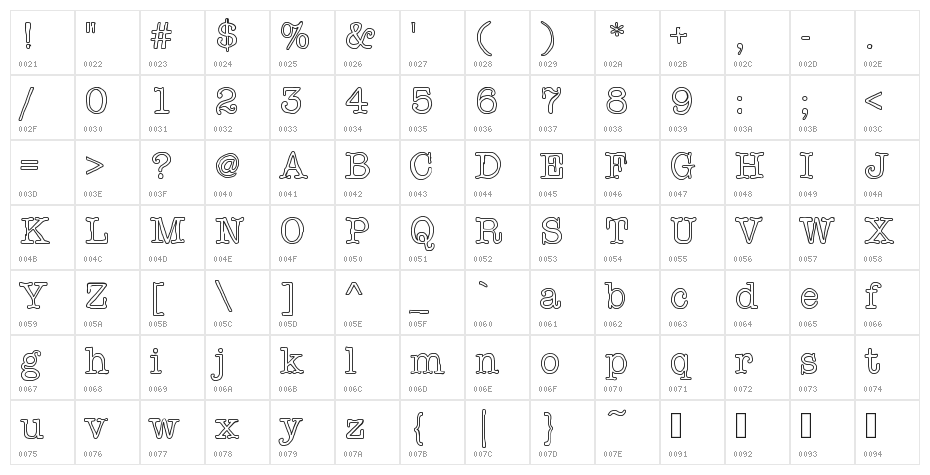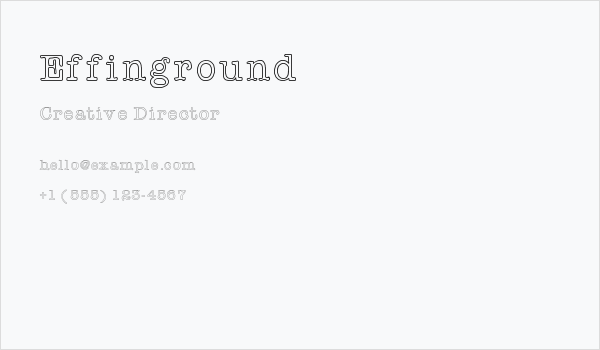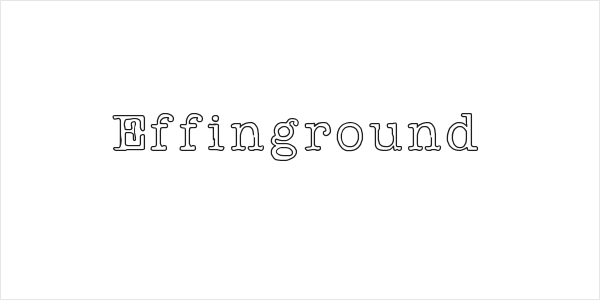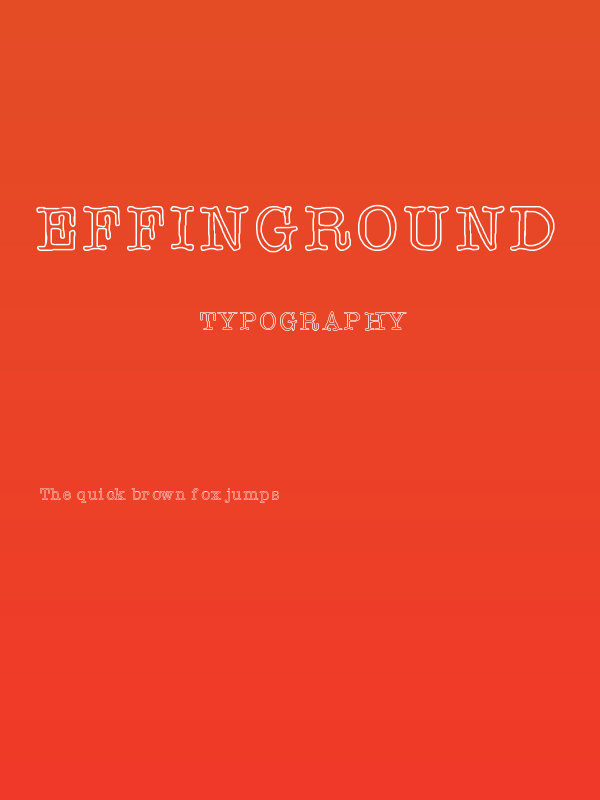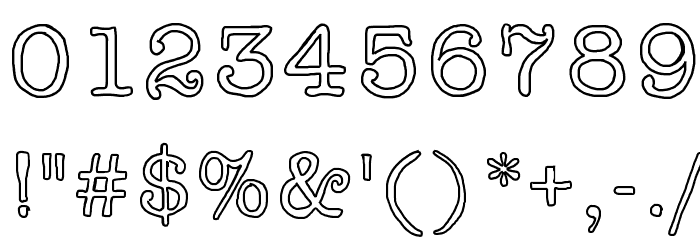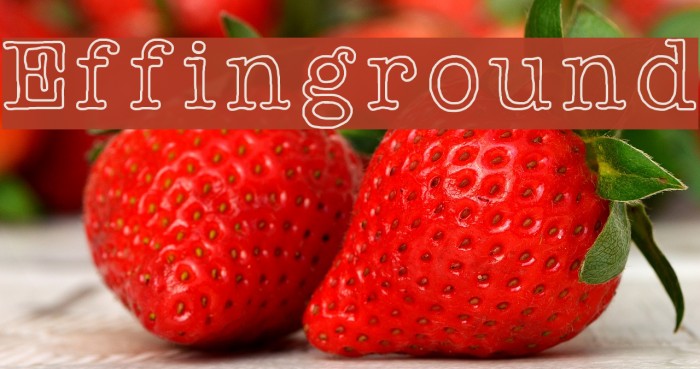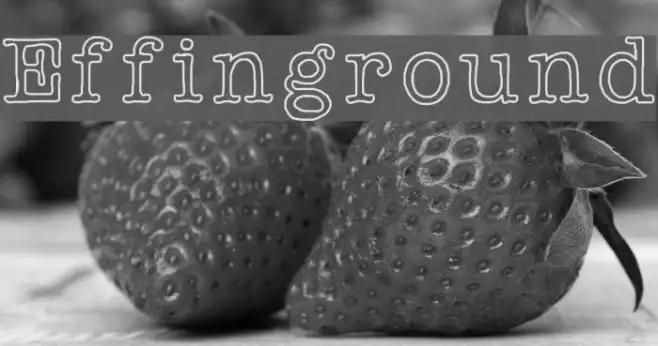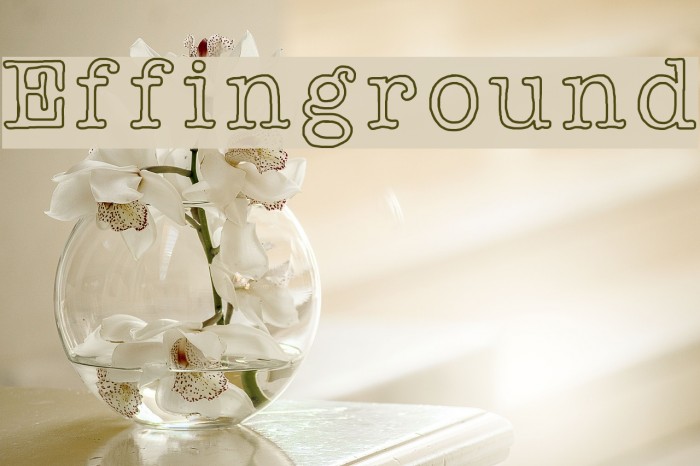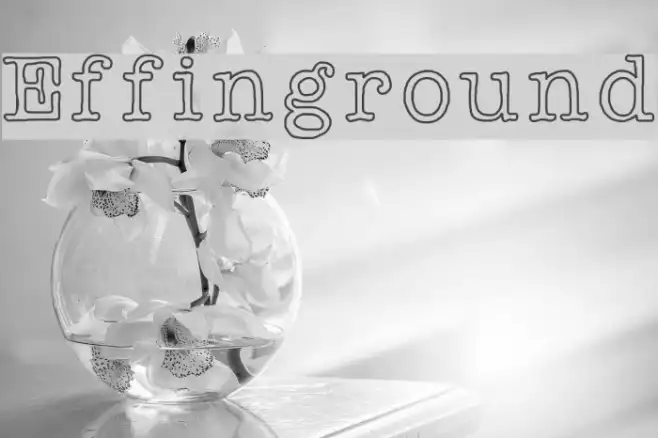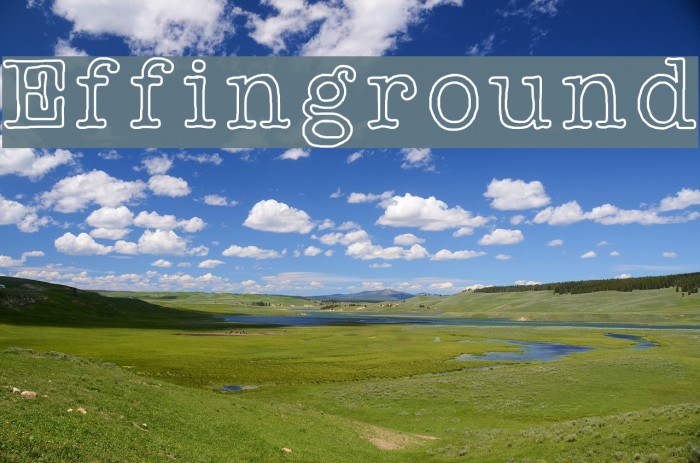
Effinground Font
Effinground Description
This font features a bold, outlined style with a classic serif structure. Each character is defined by a thick outer line, giving it a distinctive and eye-catching appearance. The serifs are pronounced, adding a touch of elegance and tradition to the overall look. The uppercase and lowercase letters maintain a consistent design, ensuring readability while providing a decorative flair. Numbers and special characters follow the same outlined pattern, making them stand out. This font is ideal for projects that require a bold statement or a vintage touch.
| Proposed Projects | Ideal for poster designs, headlines, branding, and any project that requires a vintage or bold aesthetic. |